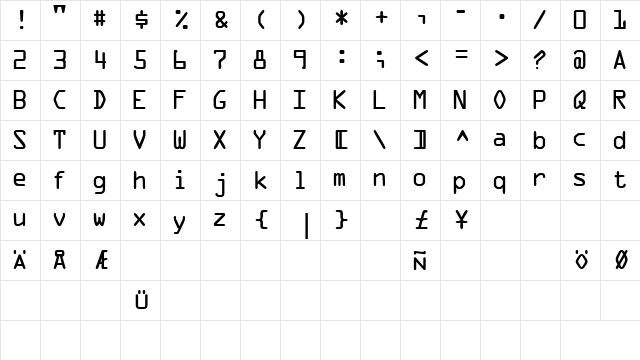
OCR1SSK Regular
Design Context for OCR1SSK Typeface
OCR1SSK offers clean, dependable letterforms without strong stylistic allegiance, making it a practical choice for designers who need flexibility.